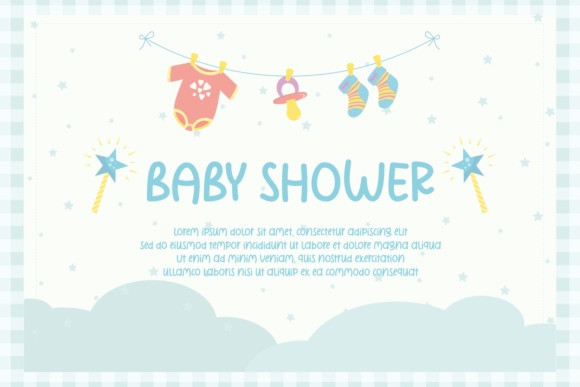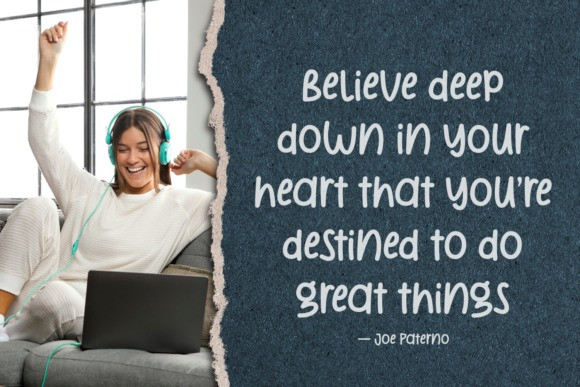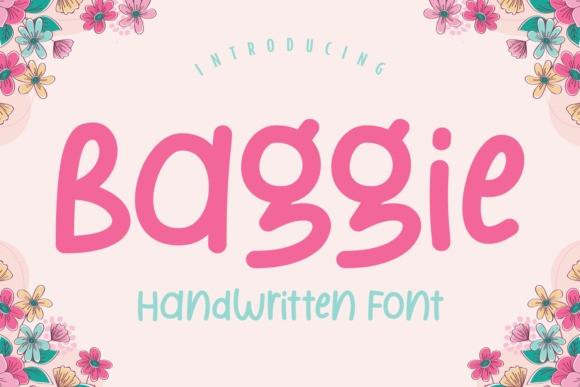
Baggie Font
Baggie Font is a cute, quirky and fun handwritten font. It embodies playfulness and authenticity and is the perfect choice for any children activity or school project.